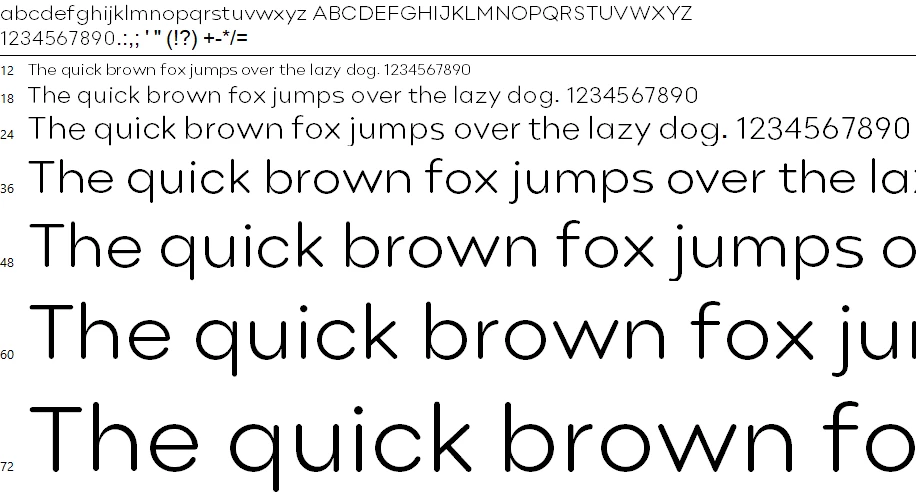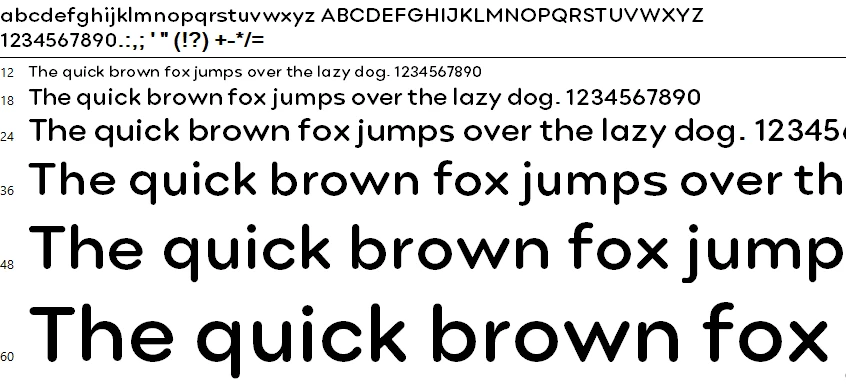
The Point soft font is published by a foundry called Ndiscover, based in Lisbon, Portugal. The foundry was founded by Natanael Gama, the designer of this font. It reinterpreted what a soft geometric font should look like. It is clean, simple, huggable and conveys a pleasant feeling.
The point of soft font has 20 styles, from hairline to black, giving you many options to choose from for your design project. It comes with two freestyles, has extended Latin and Cyrillic support, old-style, lining tabular figures and much more.
The best thing about the point soft font is that it is very readable in small and large font sizes. It has a total of 456 glyphs and comes with multi-language support. The characters of this font include uppercase, lowercase, numbers, and symbols. compatible with software like Adobe Photoshop and Adobe Illustrator.
Here are five major usages that are perfect for ambitious headings, eBook covers, brand designs, cloth printing, official cards, precise emblems, catalogs, signage, and tutorial videos.
Name | Point Soft Font Family |
Style | Display |
Designer | Natanael Gama |
Ans: It is a display font.
Ans: The font is designed by Natanael Gama.